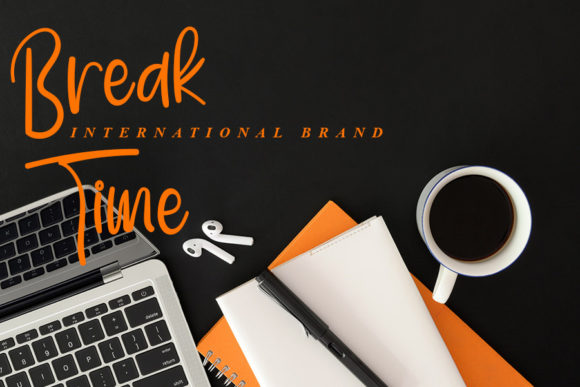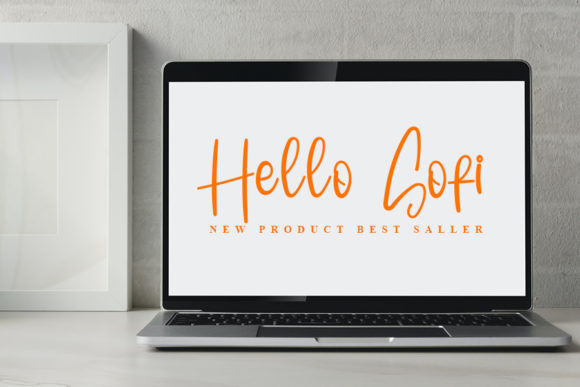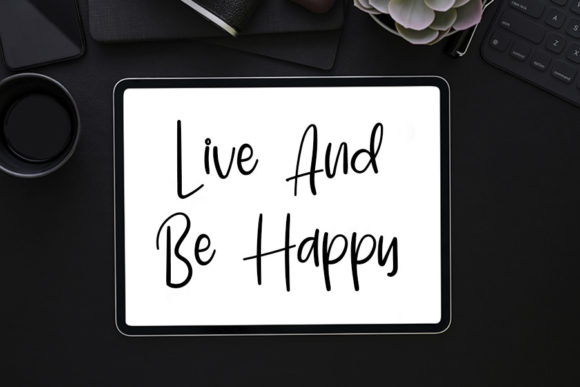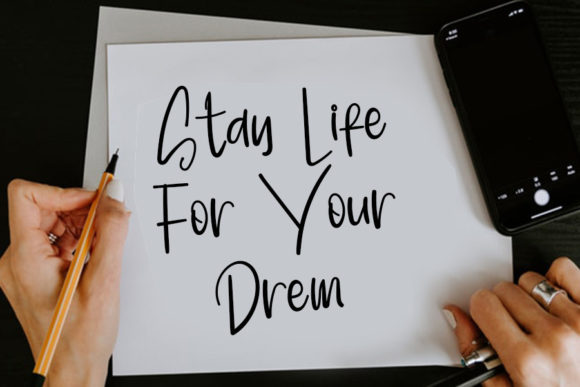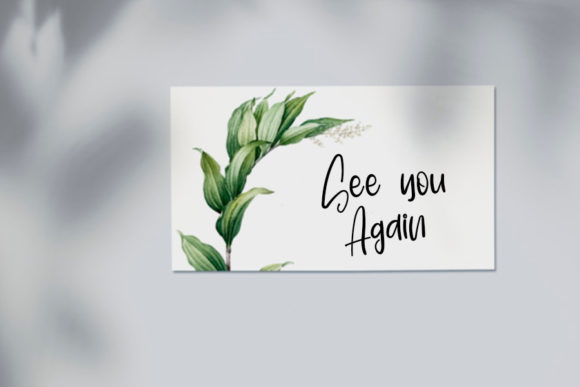
Introduction to Scriptones Font
Scriptones is a cool and fashionable handwritten font.
It can be used for various purposes such as logos, wedding invitations, headings, t-shirts and much more .
Key Features of Scriptones Font